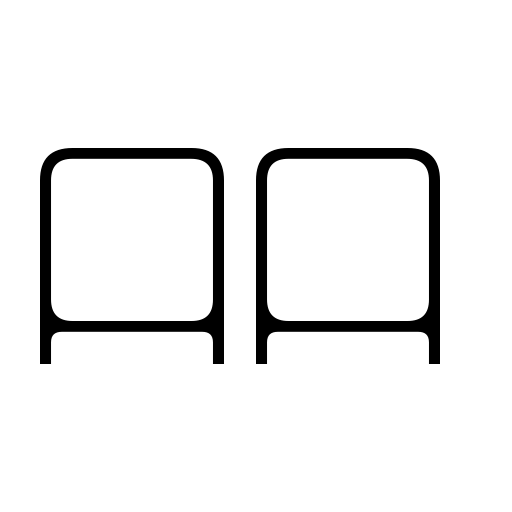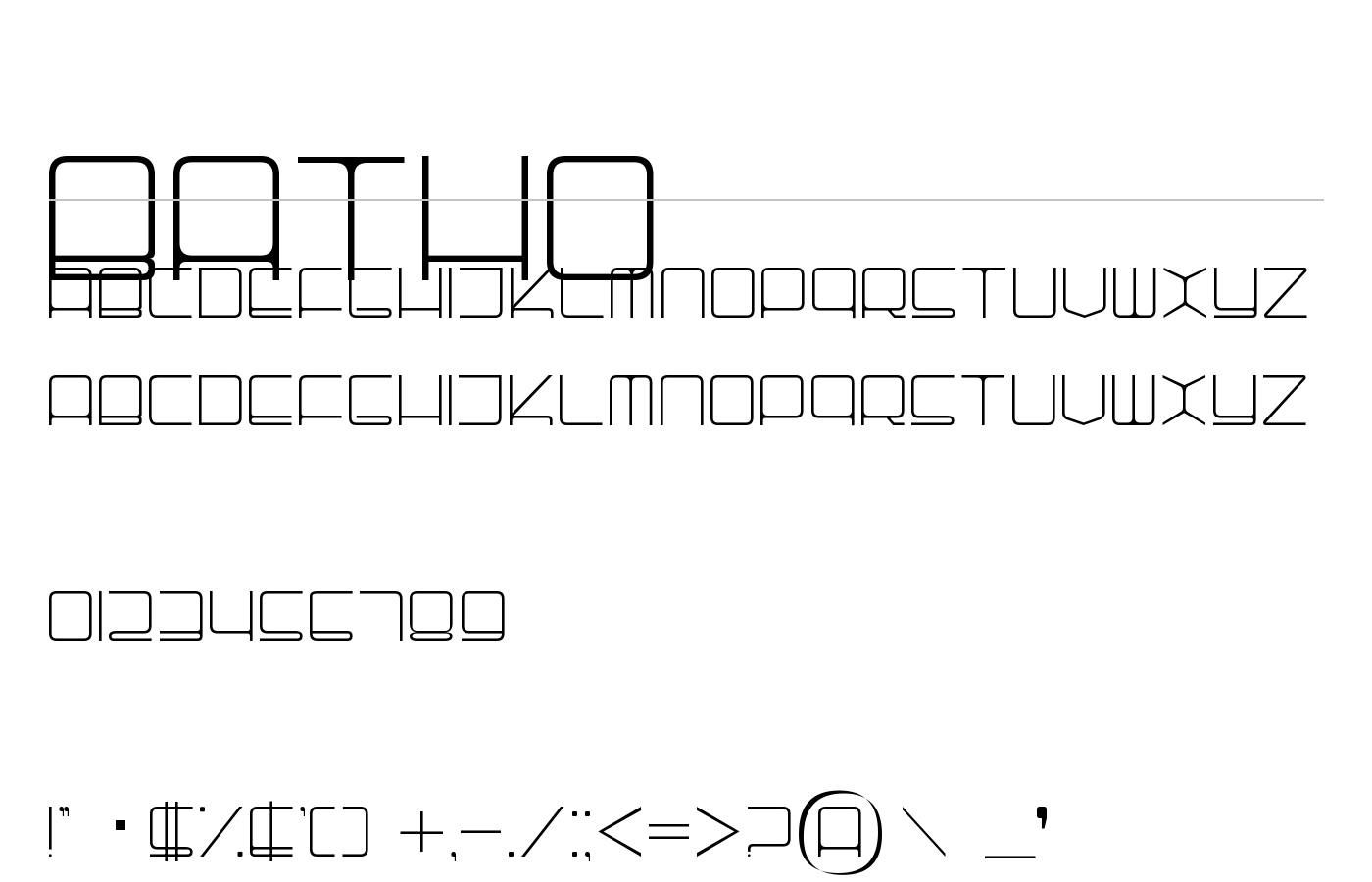
Batho Font is a modern, geometric sans serif with a distinctive technical and minimalist aesthetic. Its thin, consistent strokes and rounded corners create a clean and futuristic look, ideal for sleek branding, tech products, or contemporary editorial design. This font works best in headlines and logos where a sharp, precise style can make a strong visual impression.
| Font family | batho Font |
| Designer | High-Logic - Erwin Denissen 1999 |